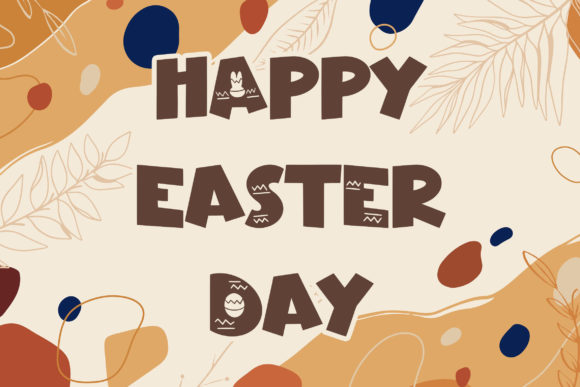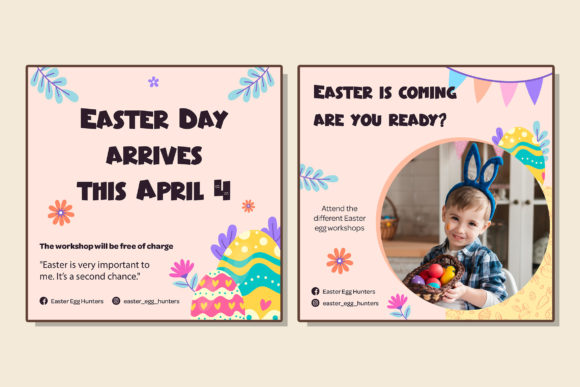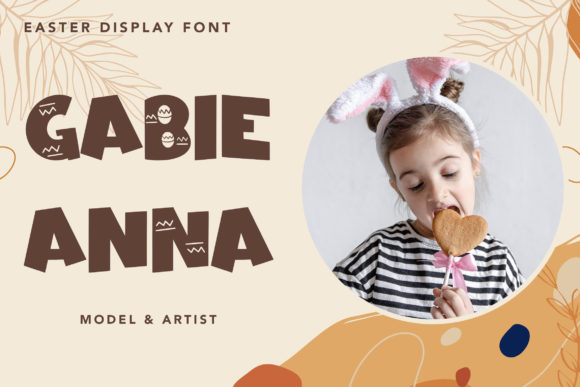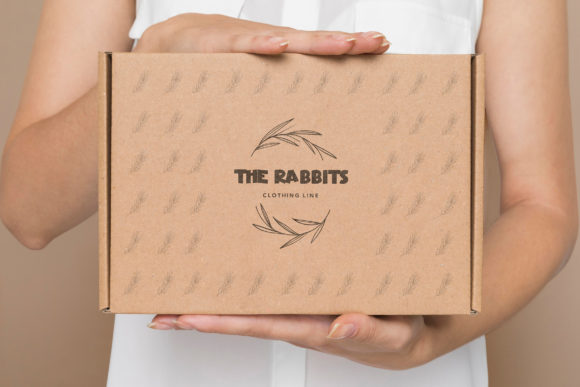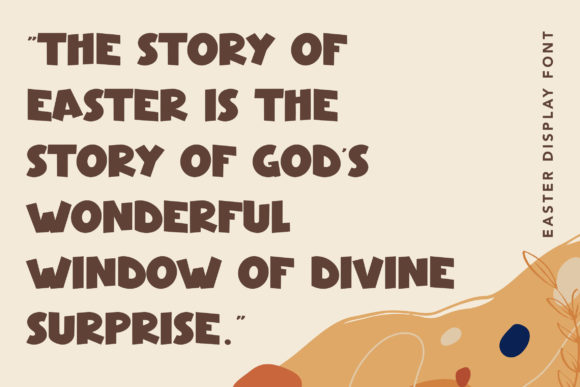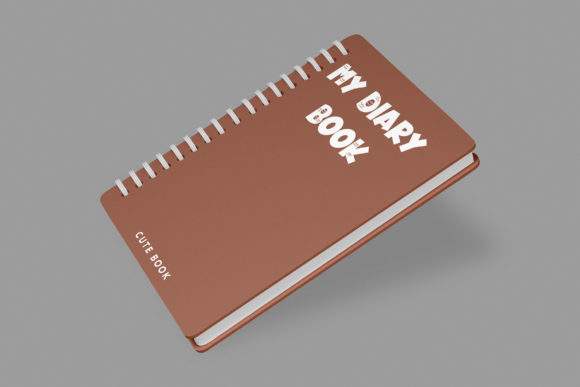
Discover Your Inner Bunny: Unleashing Creativity with the Bunny Lover Font
Do you ever find yourself browsing through your favorite design inspiration boards, feeling stuck, and then suddenly, a bold, playful font catches your eye? That’s exactly what happened to many designers when they stumbled upon the Bunny Lover Font. Its unique blend of cool, bold, and thick lettering makes it a game-changer for any poster, flyer, or print project.
The Bunny Lover Font is more than just a stylish addition to your designs – it’s a valuable tool for creatives. With its PUA (Private Use Area) encoding, accessing all the glyphs and swashes is a breeze, giving you endless possibilities to express your artistic vision. Whether you’re a seasoned designer or just starting out, the Bunny Lover Font is an essential addition to your toolkit, helping you bring your most imaginative ideas to life.
Bunny Lover Font Key Features
- Font Family: Bunny Lover Font is a unique, hand-drawn font designed for those who love bunnies. It comes in a single font family with multiple styles.
- Unique Characteristics: Bunny Lover Font features playful, whimsical elements, including cute bunny faces, flowers, and other decorative elements, adding a touch of personality to any design.
Bunny Lover Font Review
I recently had the chance to work with the Bunny Lover Font, and I’m excited to share my honest review with you.
The Bunny Lover Font has a lot going for it. I love the playful, whimsical feel it brings to any design. The font is perfect for creating a child-friendly atmosphere, and it’s great for designers who want to add a touch of sweetness to their projects.
While the Bunny Lover Font is a great addition to any designer’s toolkit, it does have some limitations. One of the main issues I encountered was the font’s lack of versatility. While it’s perfect for child-friendly designs, it may not be the best choice for more mature or professional projects.
- The font may not be suitable for use in formal or corporate settings.
- The font’s playful feel may not be to everyone’s taste.
Overall, I’m impressed with the Bunny Lover Font. While it may not be the most versatile font, it’s perfect for designers who want to add a touch of whimsy to their projects. With its high level of customization and wide range of applications, it’s definitely a font worth checking out.
Getting the Most Out of Bunny Lover Font
For the best results, use Bunny Lover Font for projects that feature cute and playful designs. Some popular use cases include:
- Children’s party invitations
- Animal-themed greeting cards
- Whimsical social media graphics